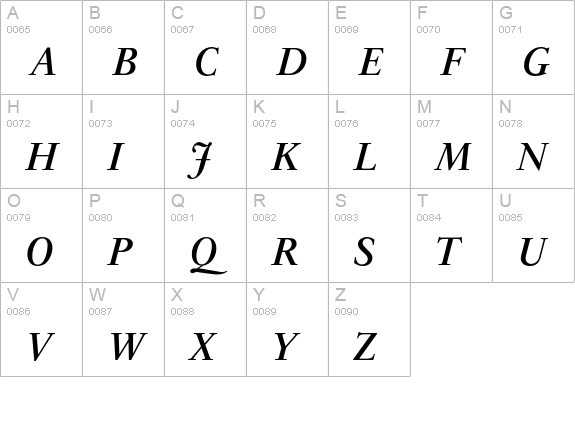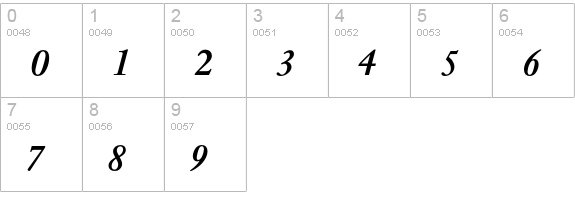
NikisEF-SemiBoldItalic Font Details
NikisEF-SemiBoldItalic font is a stylish and modern typeface designed for adding a touch of elegance to your projects. With its semi-bold weight and italic styling, this font exudes a sense of sophistication and creativity. Perfect for headings, quotes, and any design that needs a bold yet elegant touch. And the best part? NikisEF-SemiBoldItalic font is available for free download at FontsMarket.com. This means you can easily access and use this beautiful font in your designs without any cost. Don't miss out on the opportunity to enhance your projects with the unique charm of NikisEF-SemiBoldItalic font. Download it now and elevate your designs to the next level!